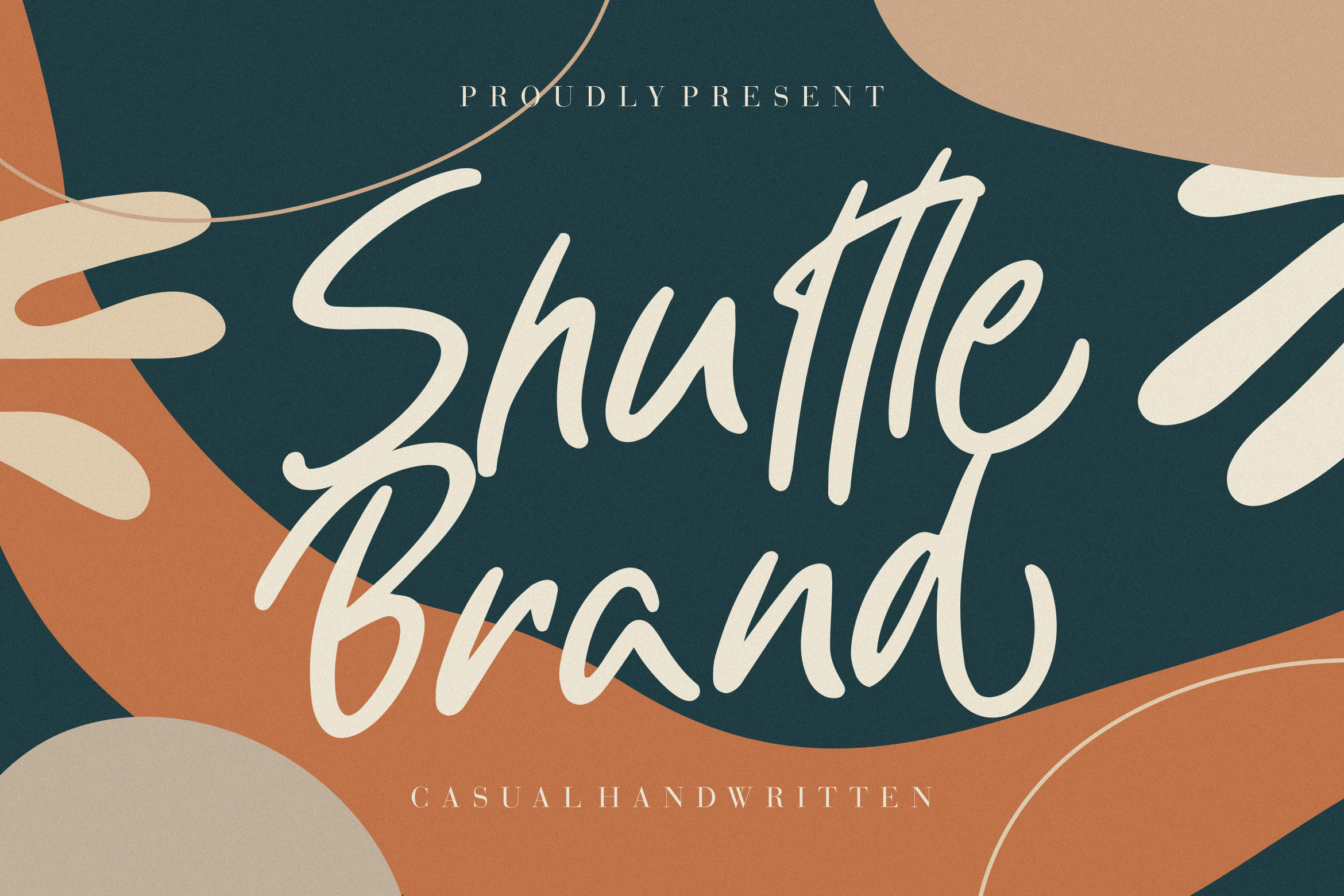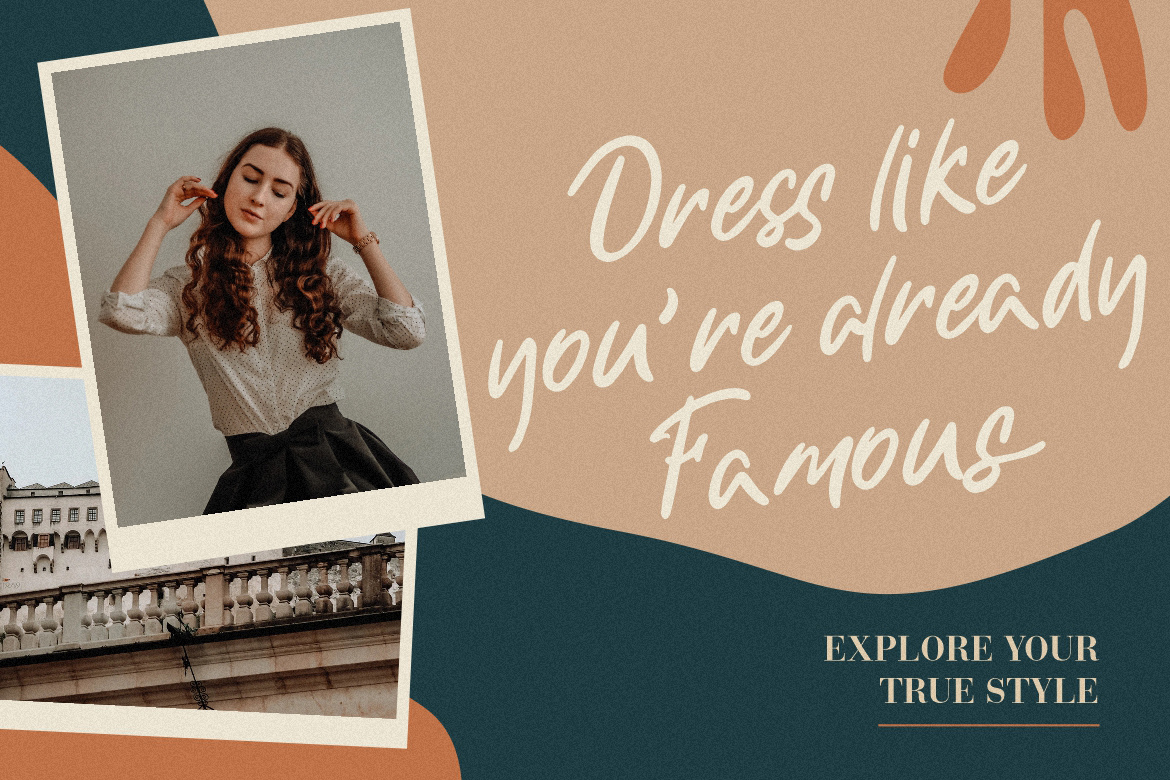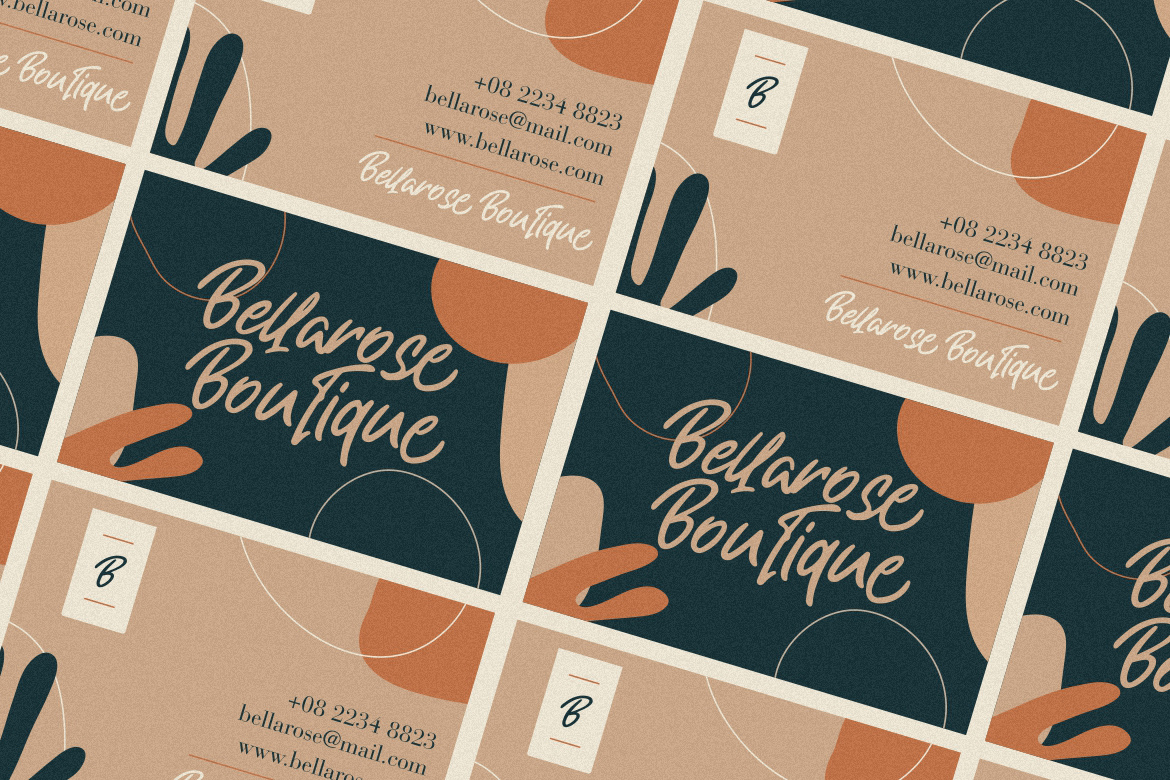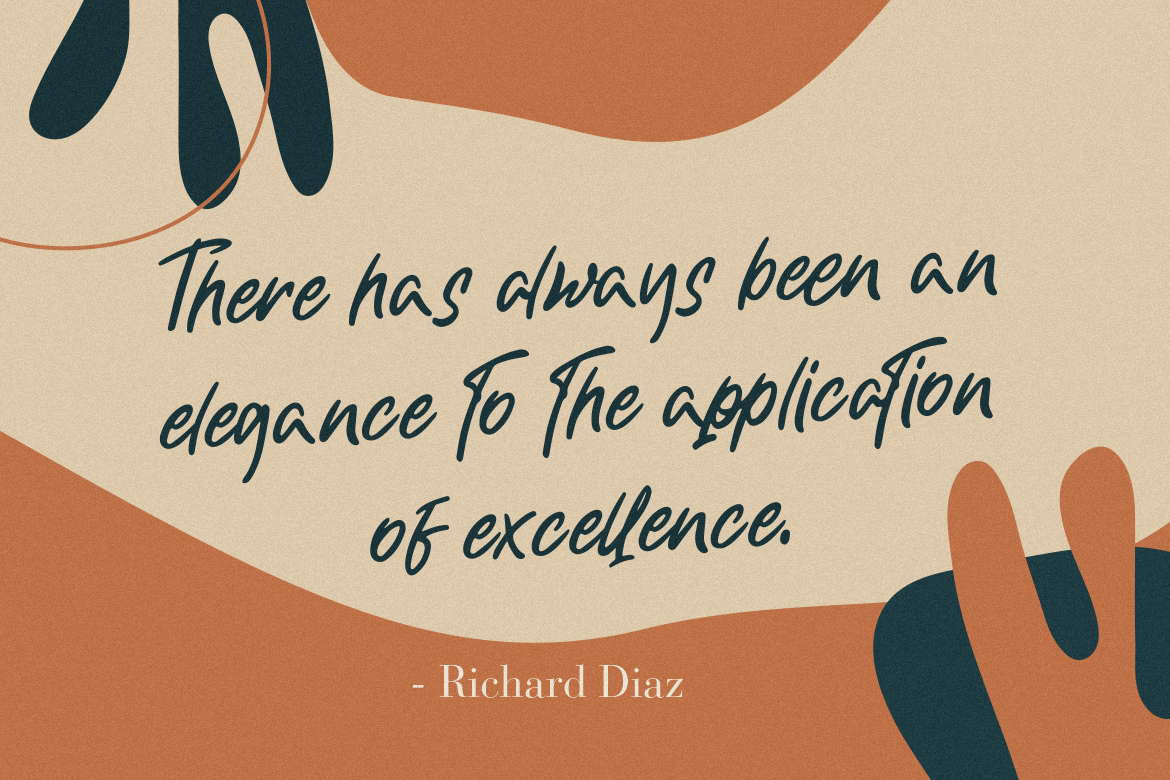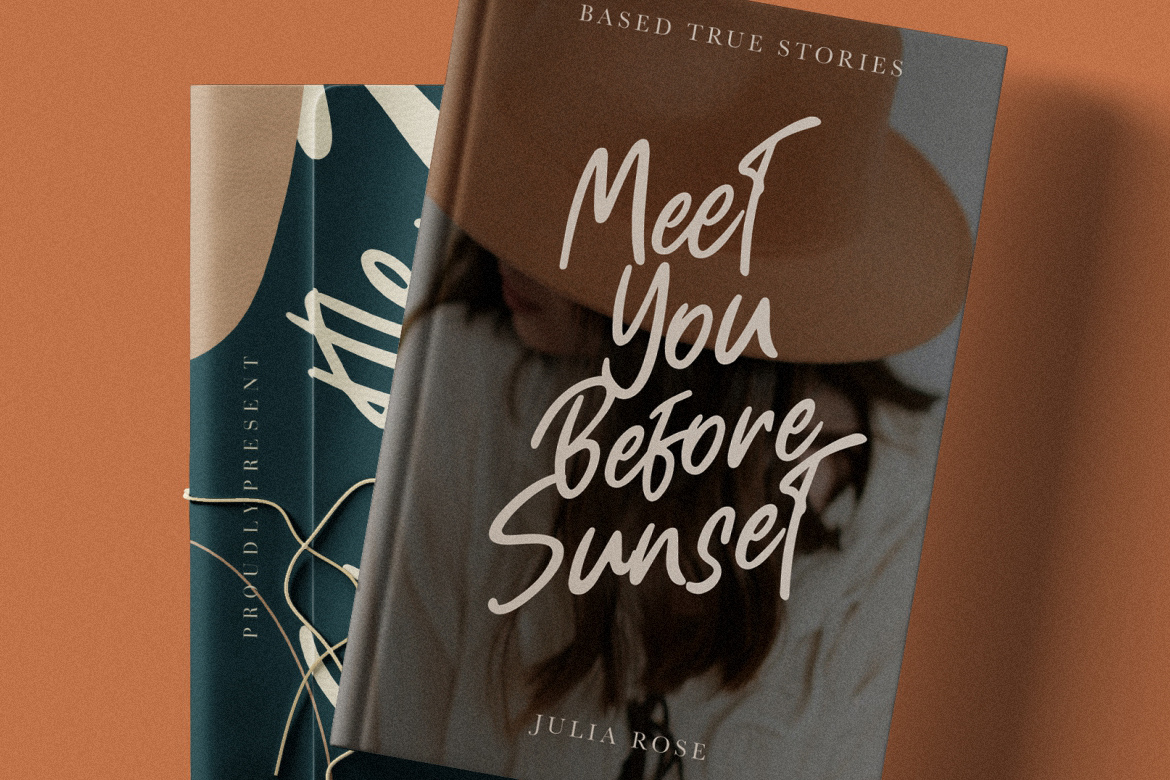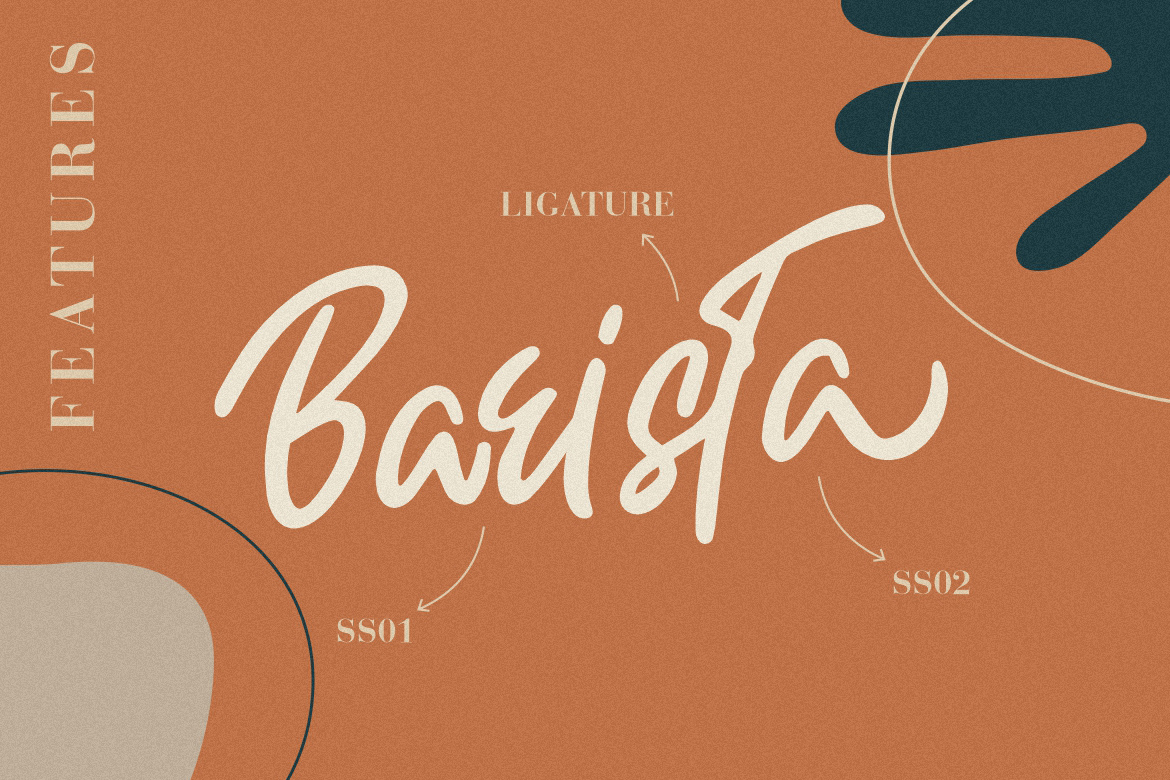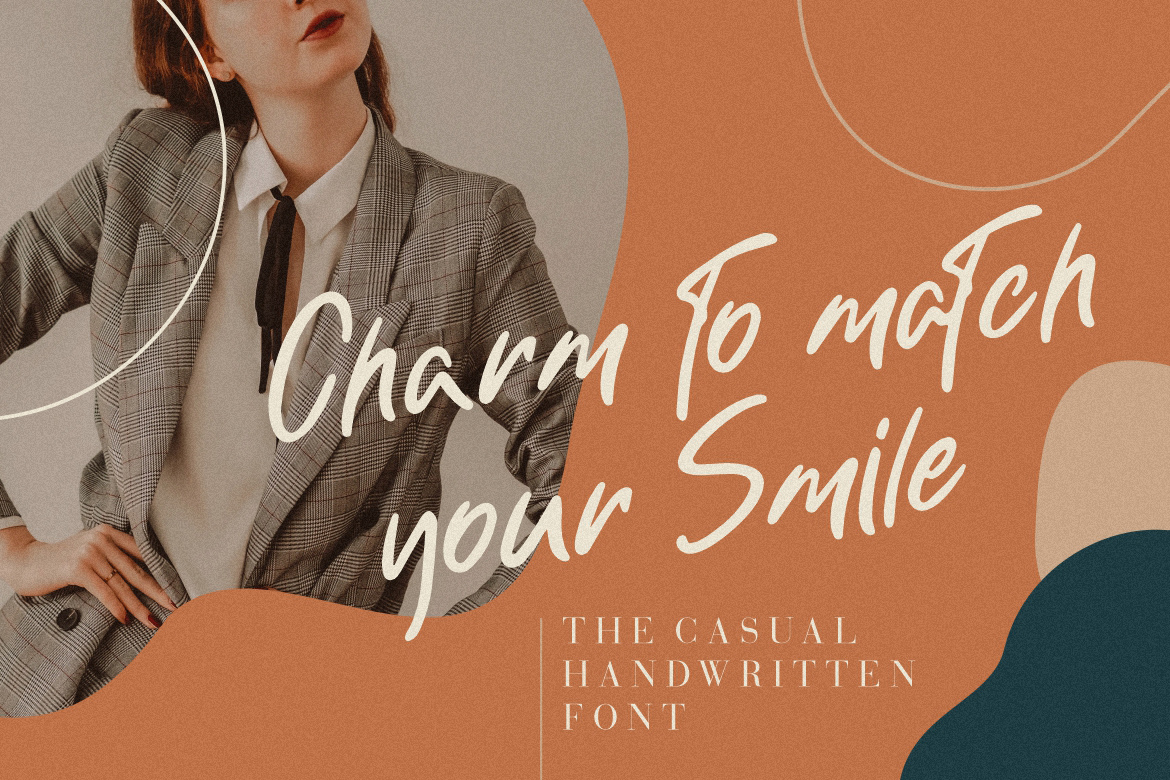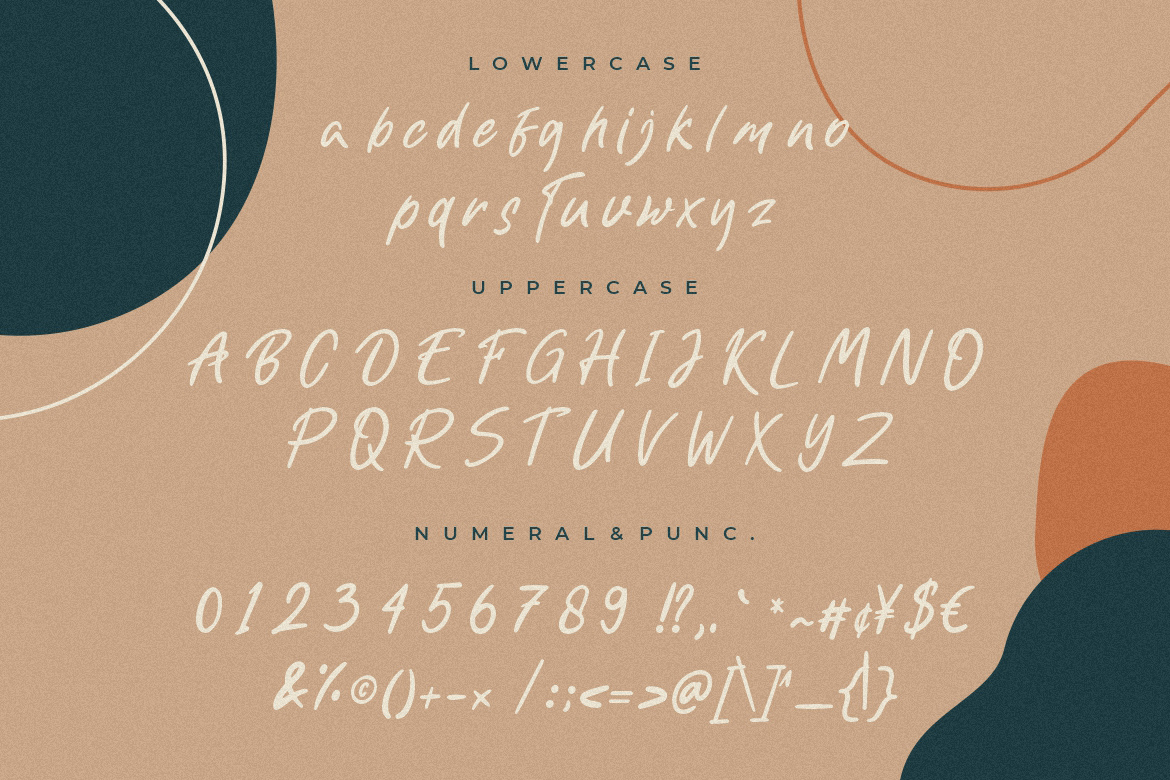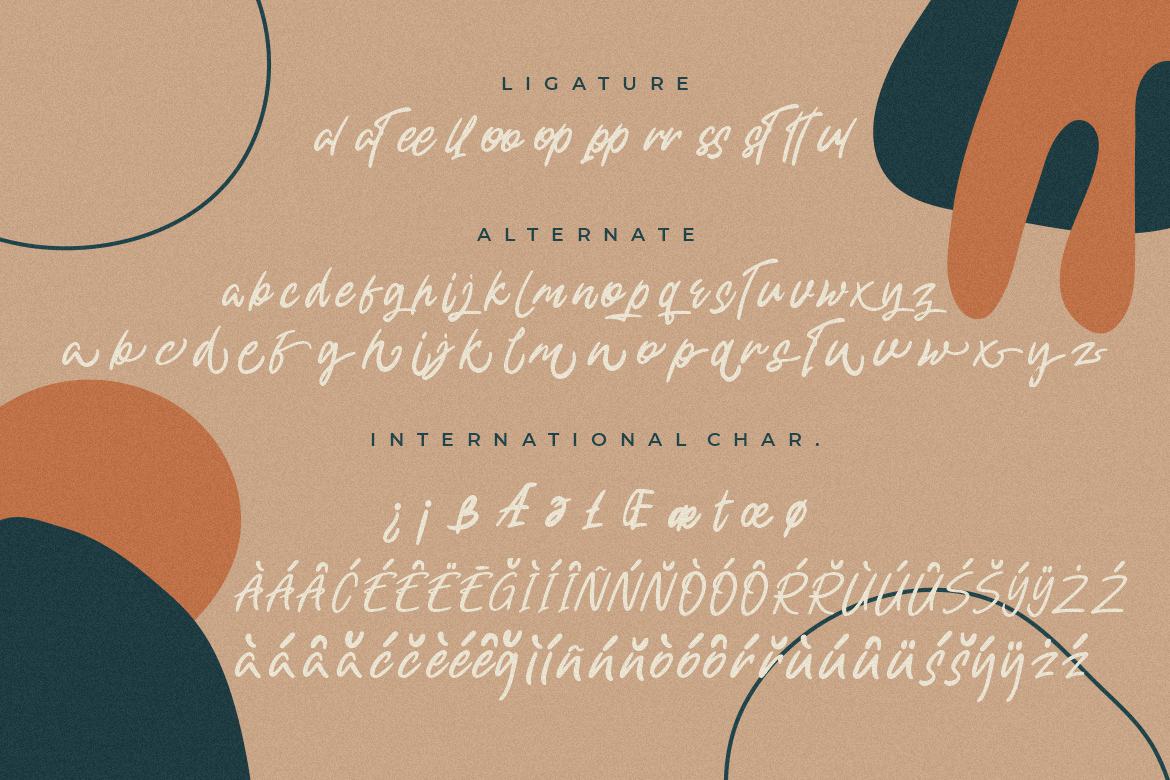
Shuttle Brand Casual Business Font
Introducing Shuttle Brand – A casual handwritten font looks so natural dan brushy. This font will looks awesome and amazing in many way to your latest project. The font is perfect for for movie title, logo, blogging, brand identity, book title, social media, branding, wedding invites, cards or simply use it in your next design project and suitable to use for many occasion.
• Ton of glyphs
• Ligature & Alternate
• Fonts include multilingual support for; Afrikaans, Albanian, Czech, Danish, Dutch, English, Estonian, Finnish, French, German, Hungarian, Italian, Latvian, Lithuanian, Norwegian, Polish, Portuguese, Slovak, Slovenian, Spanish, Swedish.